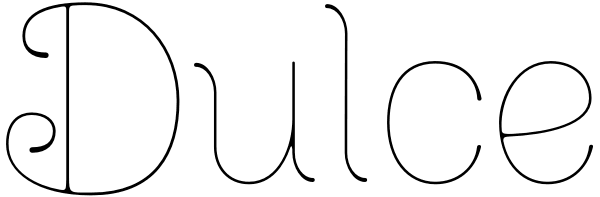
Dulce
Dulce is a swash typeface with an elegant and romantic touch. It is thin, but it becomes thick where two terminals meet and it also has swelling at terminals. Its wide range of ligatures makes it a versatile typeface, suitable for headlines and...